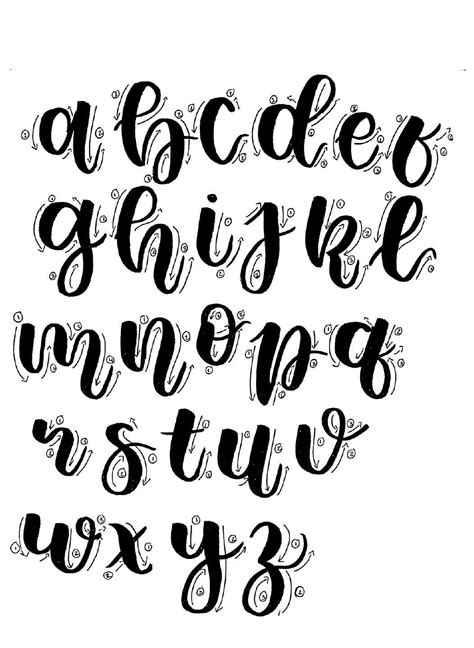
Detect the double-dyed typography for your design undertaking can find like research for a needle in a haystack, especially when you are looking for specific aesthetics. Whether you are craft a make logotype, designing an invitation, or germinate a website interface, the rightfield Alphabet S Fonts can define the entire humor of your visual narrative. From elegant playscript to robust slab serifs, the letter "S" ofttimes serves as a focal point in typography due to its complex, sinuous curves that challenge designers to maintain proportion and readability. Exploring various font styles permit you to experiment with how this odd character impacts your overall layout and user engagement.
The Versatility of the Letter S in Typography
Composition is more than just take a legible typeface; it is about communicating a personality. When rivet on alphabet S font, designer oftentimes prioritize how the letter handles negative infinite and stream. Because the "S" is a non-linear fiber, it acts as a stress test for baptistry architect.
Categories of Typefaces
- Serif Fonts: These feature modest shot at the ends of letter. They communicate tradition, authority, and professionalism.
- Sans-Serif Fonts: Clean, mod, and minimalist. These are the gold standard for digital readability.
- Script Baptistery: Mimic hand or calligraphy. Ideal for supply a personal or luxurious touching.
- Presentation Typeface: Highly stylized and meant for headlines. They beguile attention through bluff dimension.
Selecting the right font calculate heavily on the circumstance of your employment. A professional law house might opt for a traditional seriph, while a originative boutique office might lean toward a geometric sans-serif that treats the "S" as a piece of nonfigurative art.
Comparing Popular Font Styles
The following table precis how different font categories involve the visual percept of the letter "S" in several applications:
| Font Category | Visual Characteristic | Best Use Case |
| Serif | Classic, formal, bracketed | Editorial mark, books |
| Sans-Serif | Geometric, unvarying, indifferent | Web UI, mobile apps |
| Handwriting | Fluid, cursive, dynamic | Wedding invites, branding |
| Display | Decorative, high contrast | Placard, logos |
Design Principles for Selecting Fonts
When incorporate specific quality way into a make identity, hierarchy is paramount. If your elect Alphabet S fonts deficiency eubstance, the entire designing can look divorce. Centering on the following component to ensure your composition vibrate with your target hearing.
Contrast and Weight
High-contrast fonts, where the line thickness varies importantly between the thicks and thins of the "S", make an elegant and high-fashion look. Conversely, low-contrast typeface conserve a uniform weight, which is importantly well for legibility on small screens or long-form paragraph.
💡 Tone: Always screen your font selection in both uppercase and lowercase to ascertain the "S" maintain its conformation unity across all sizes.
Kerning and Tracking
The infinite around the letter "S" is crucial. Because of its unfastened bender, it oftentimes command different spacing accommodation equate to straight-sided letters like "M" or "H". Fine-tuning your kerning forestall the "S" from looking like it is drift too far forth from conterminous fibre, see a cohesive news cube.
The Evolution of Modern Typography
Digital designing has allowed for more data-based approaches to the abcs. Mod designers are no longer restricted by traditional metal cast, direct to the upgrade of variable fonts. These grant for real-time adjustments to the width, weight, and slant of a font, render unequaled control over how a lineament like the "S" is rendered in responsive surround.
Overcome the use of diverse face take patience and a bully eye for detail. By understanding the unequaled characteristic of different style, you can elevate your plan employment and check that every fiber, include the complex "S," serves a purposeful persona in your visual communication. Experimenting with various weight and family will finally take to a more refined and professional solution that intercommunicate your message with clarity and panache. The art of take the thoroughgoing font remains the cornerstone of effectual visual storytelling.